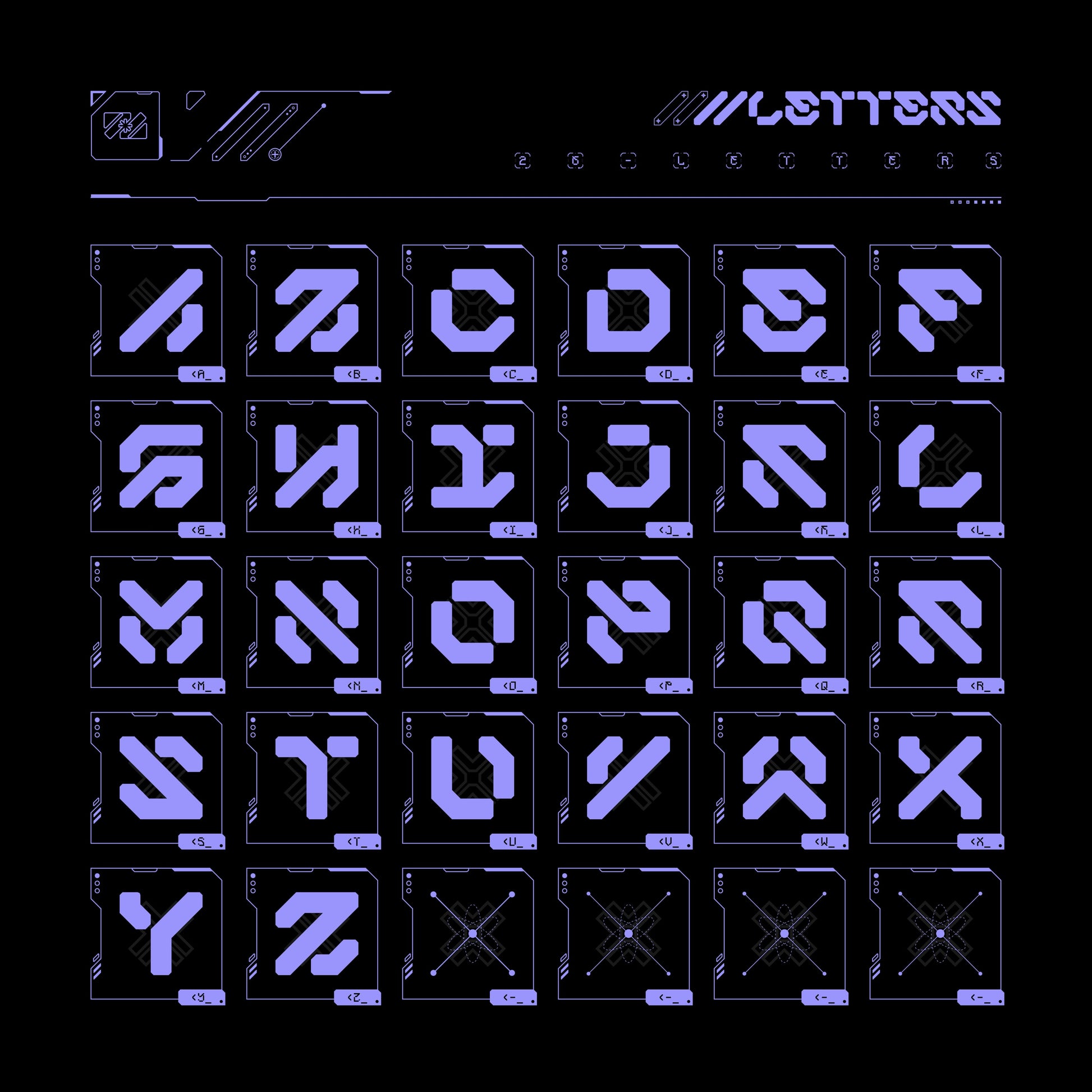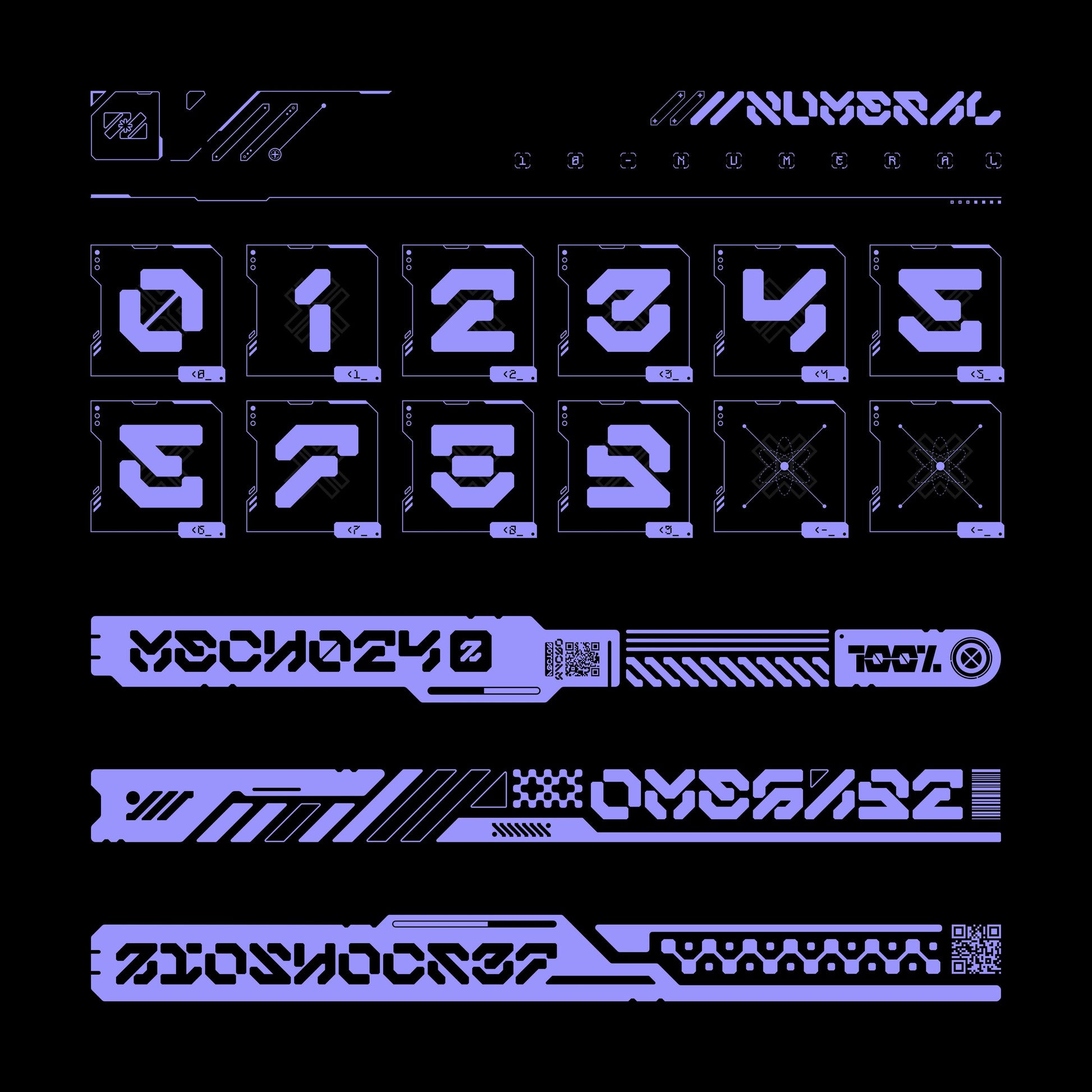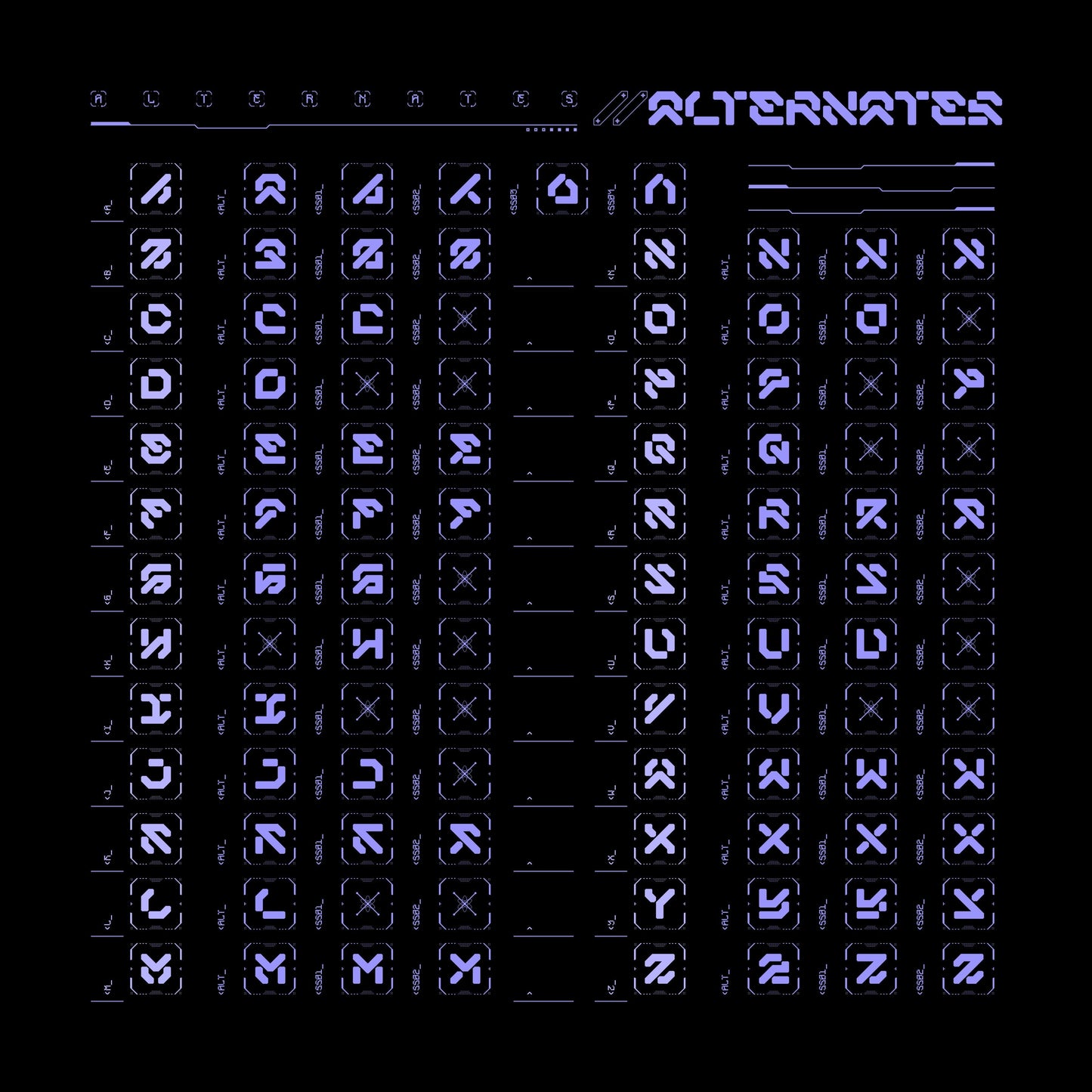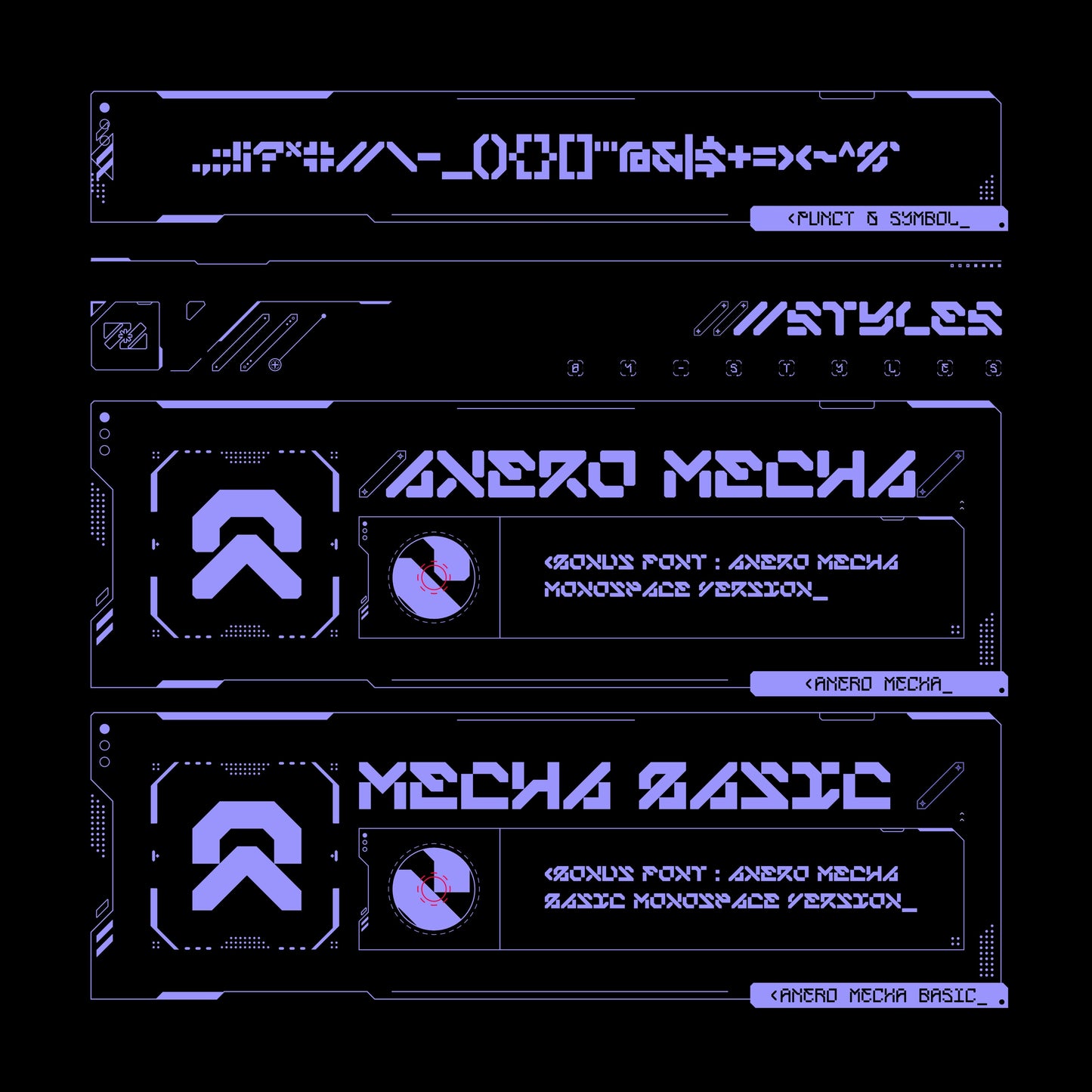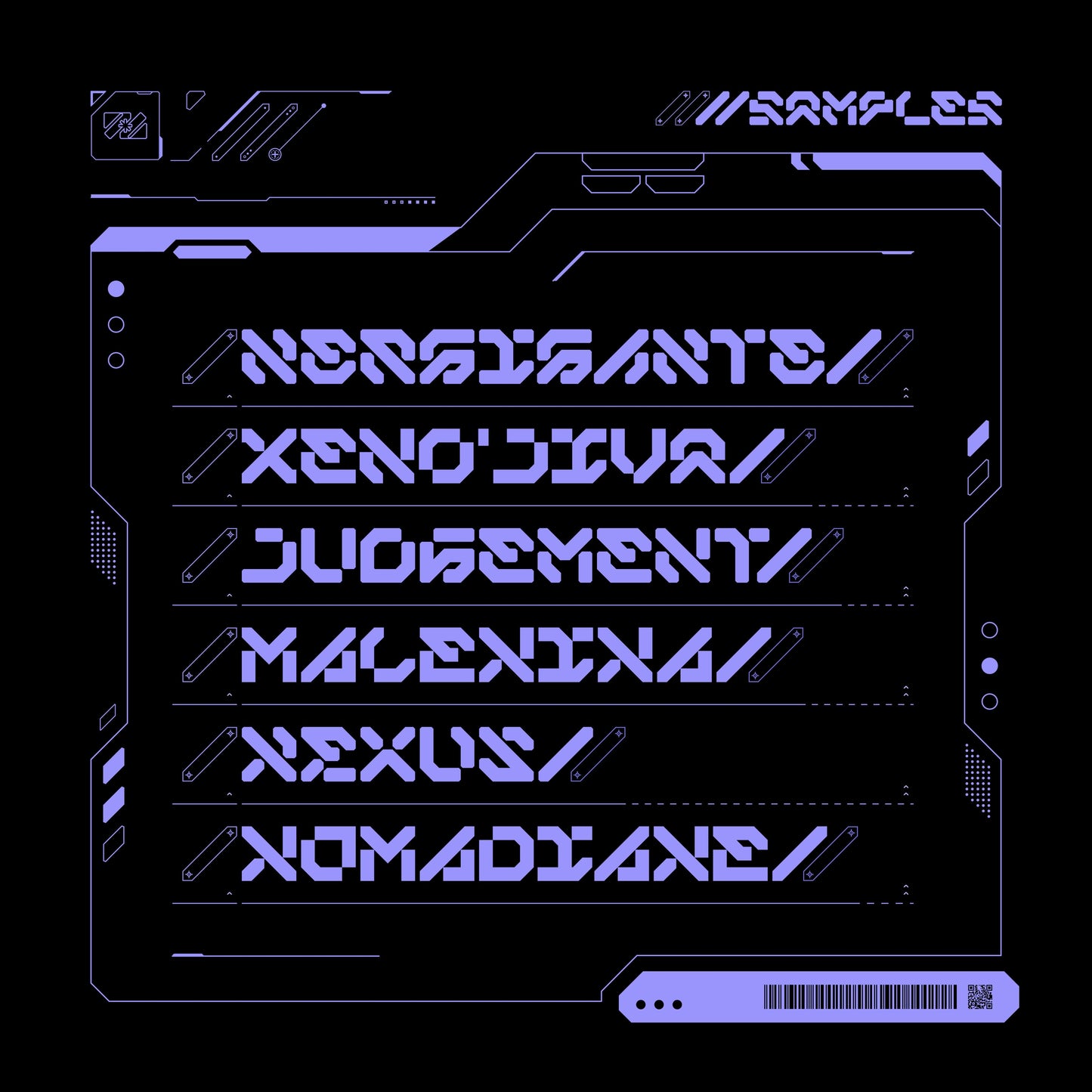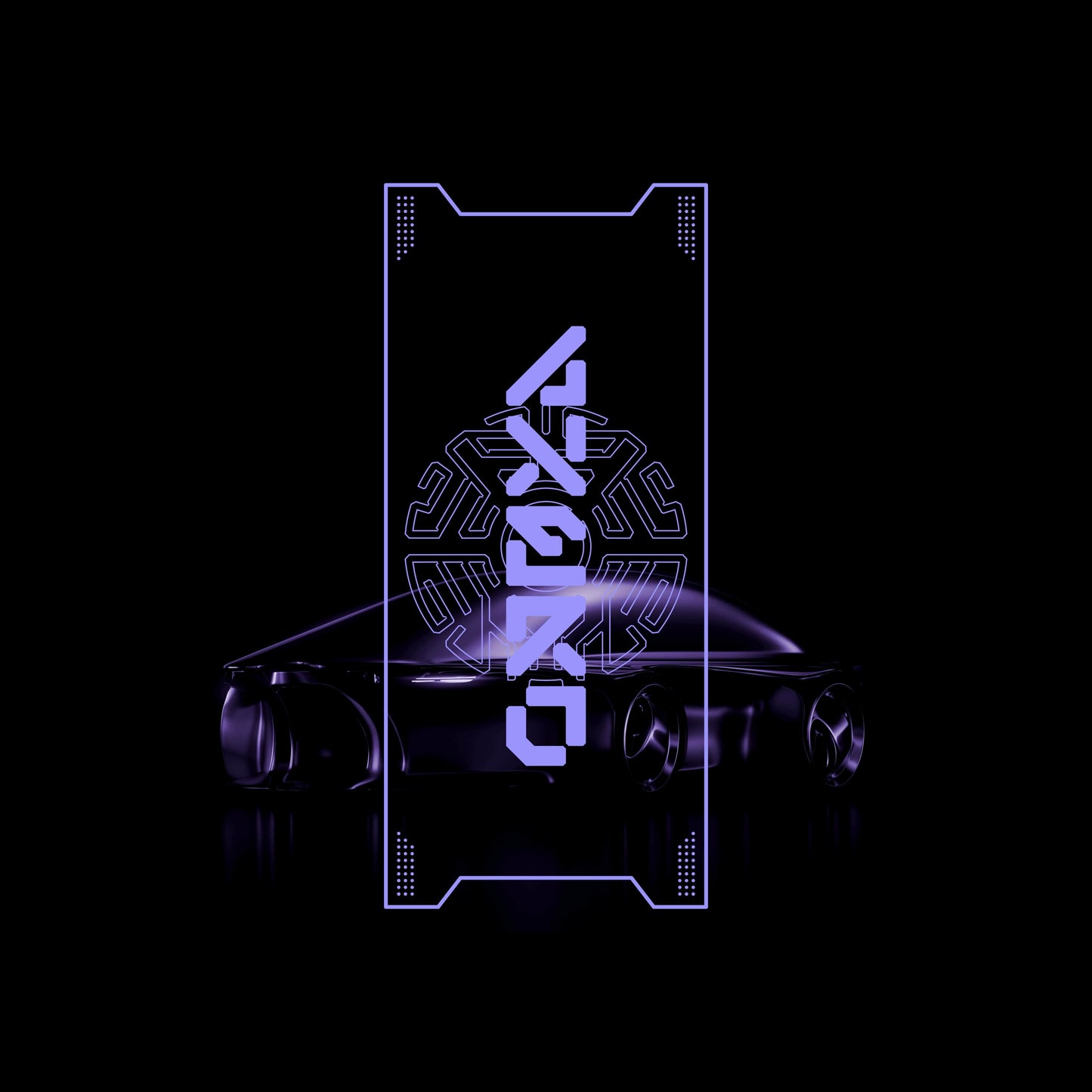
Another version of ANERO has come! This time he joins the world of MECHA! (◕‿◕) Anero Mecha has two variants with a bonus monospace version. Anero has 58 alternative letters which gives a lot of choice for their use!